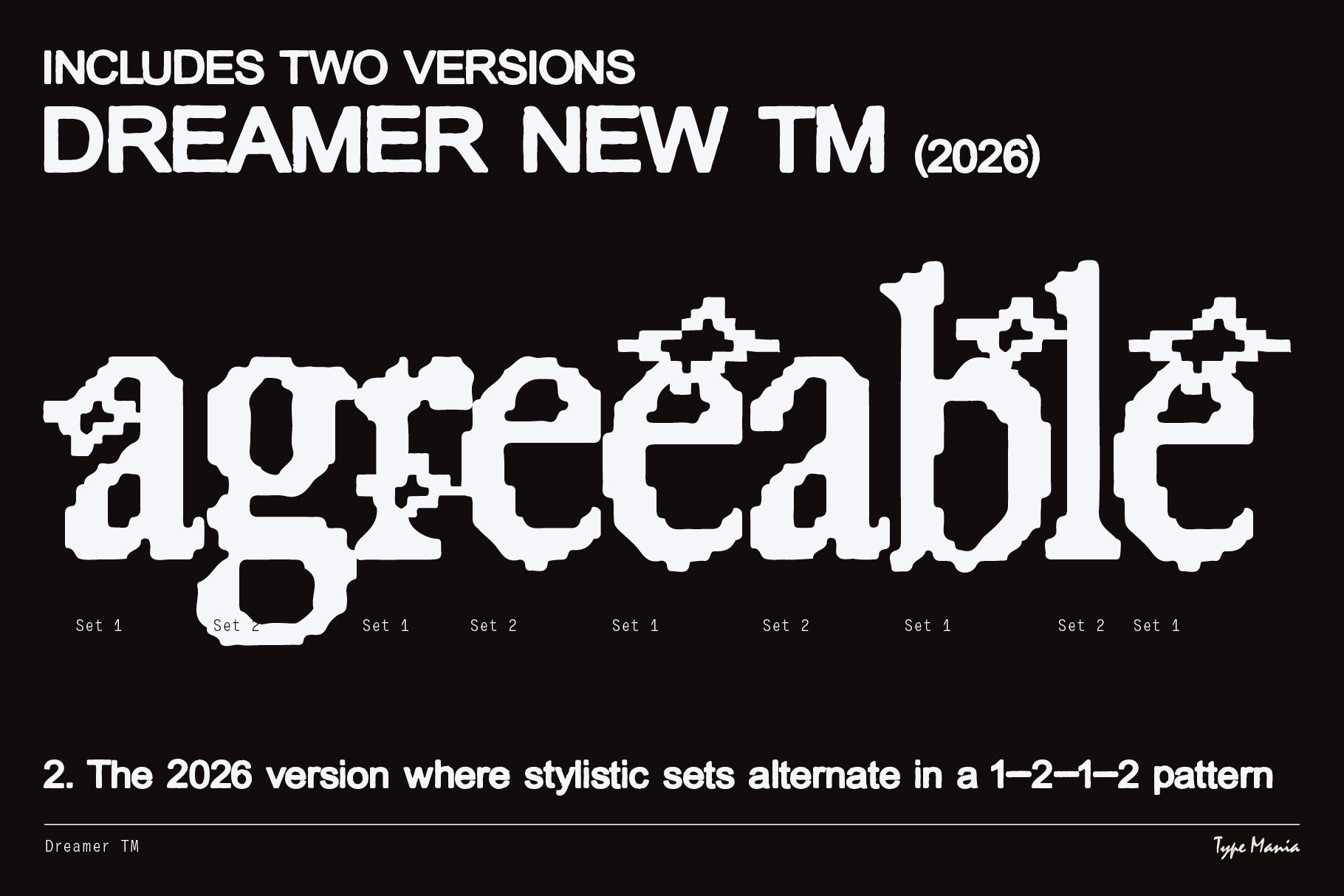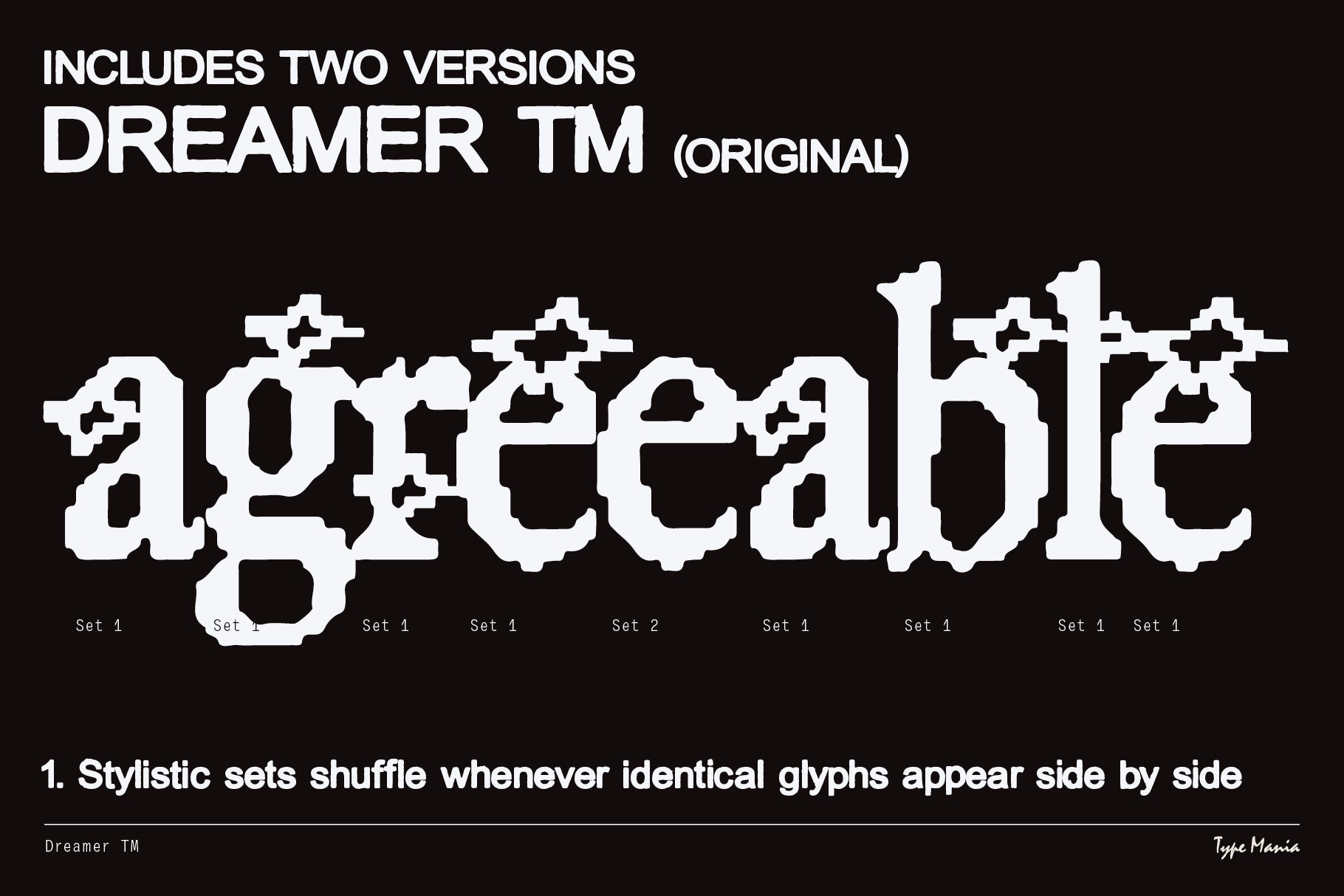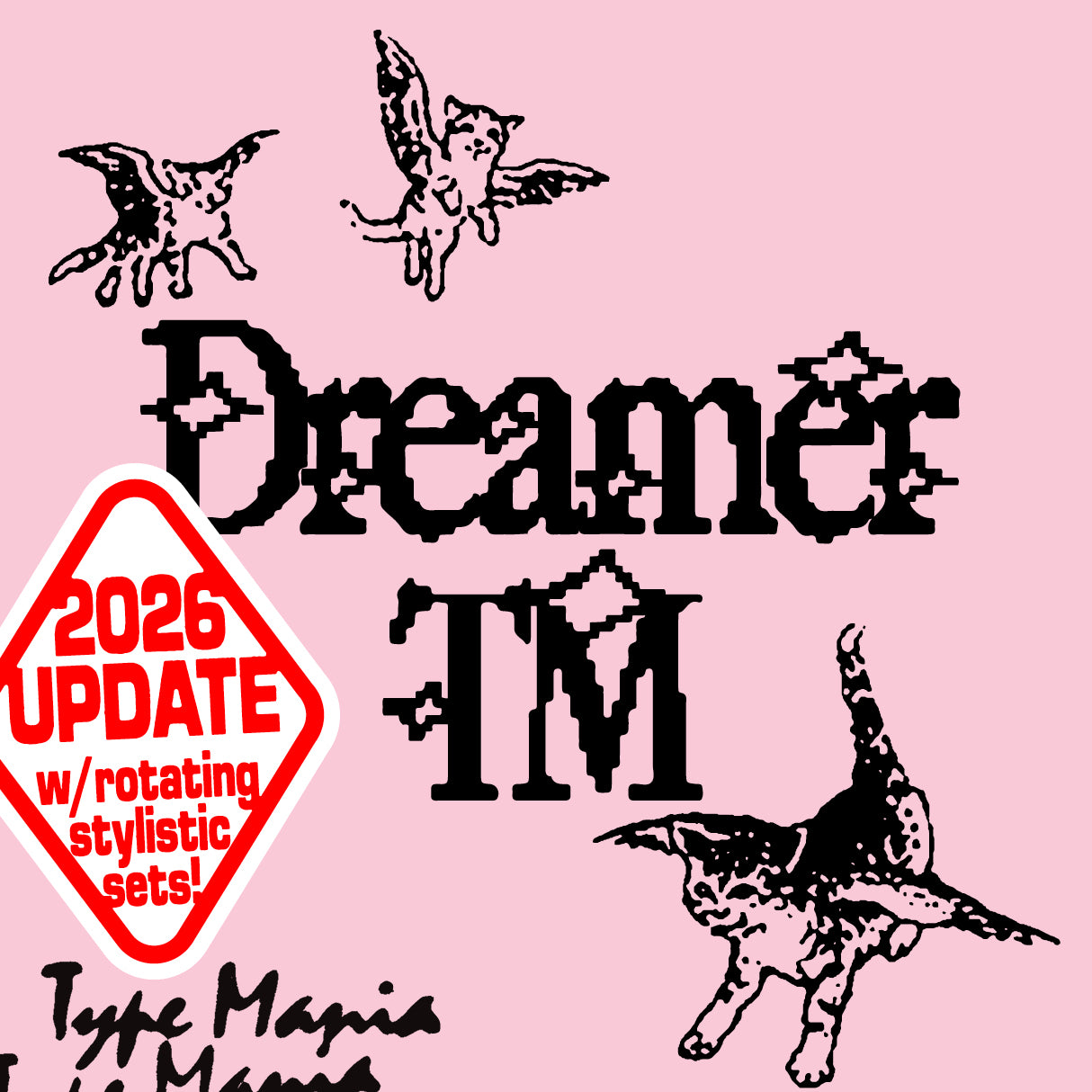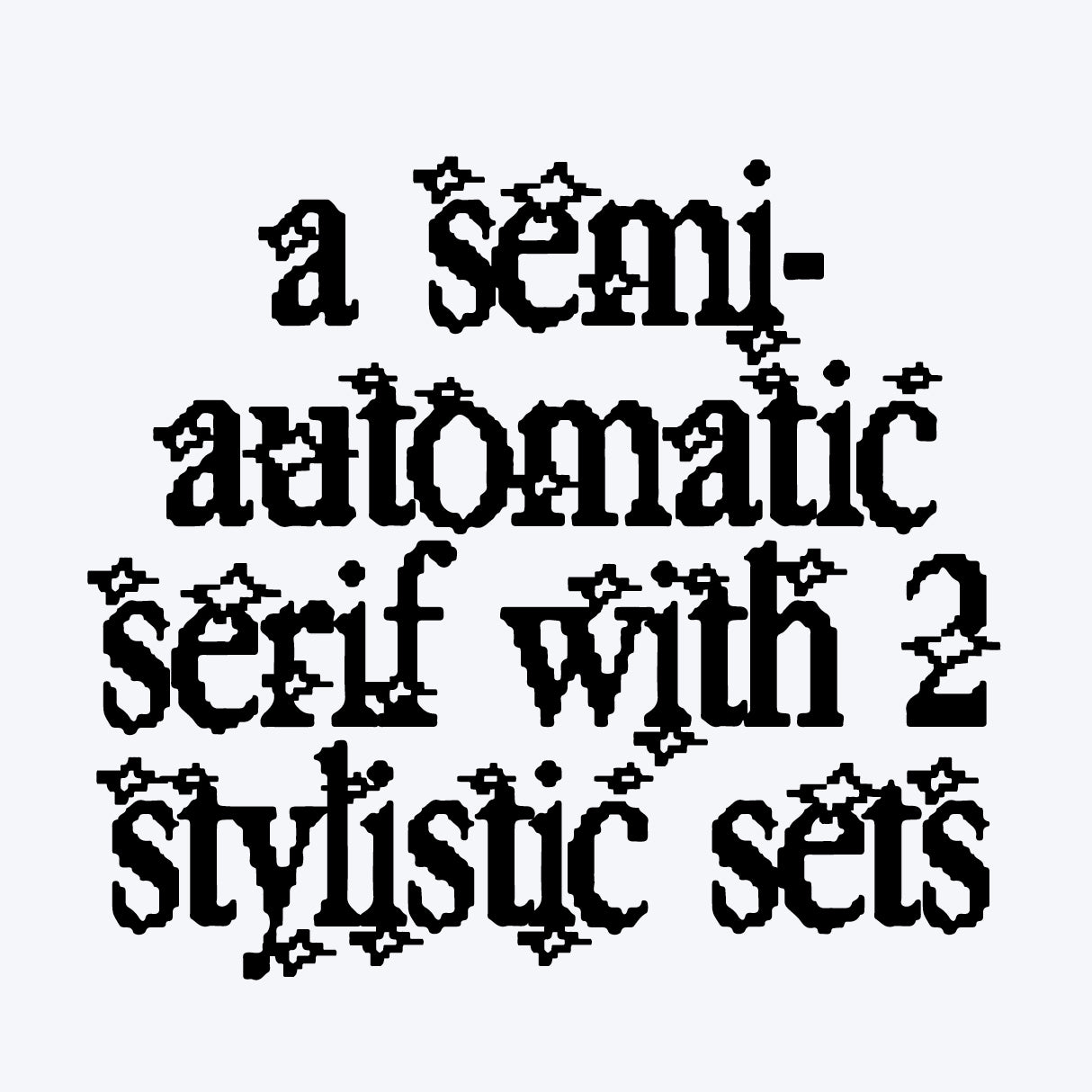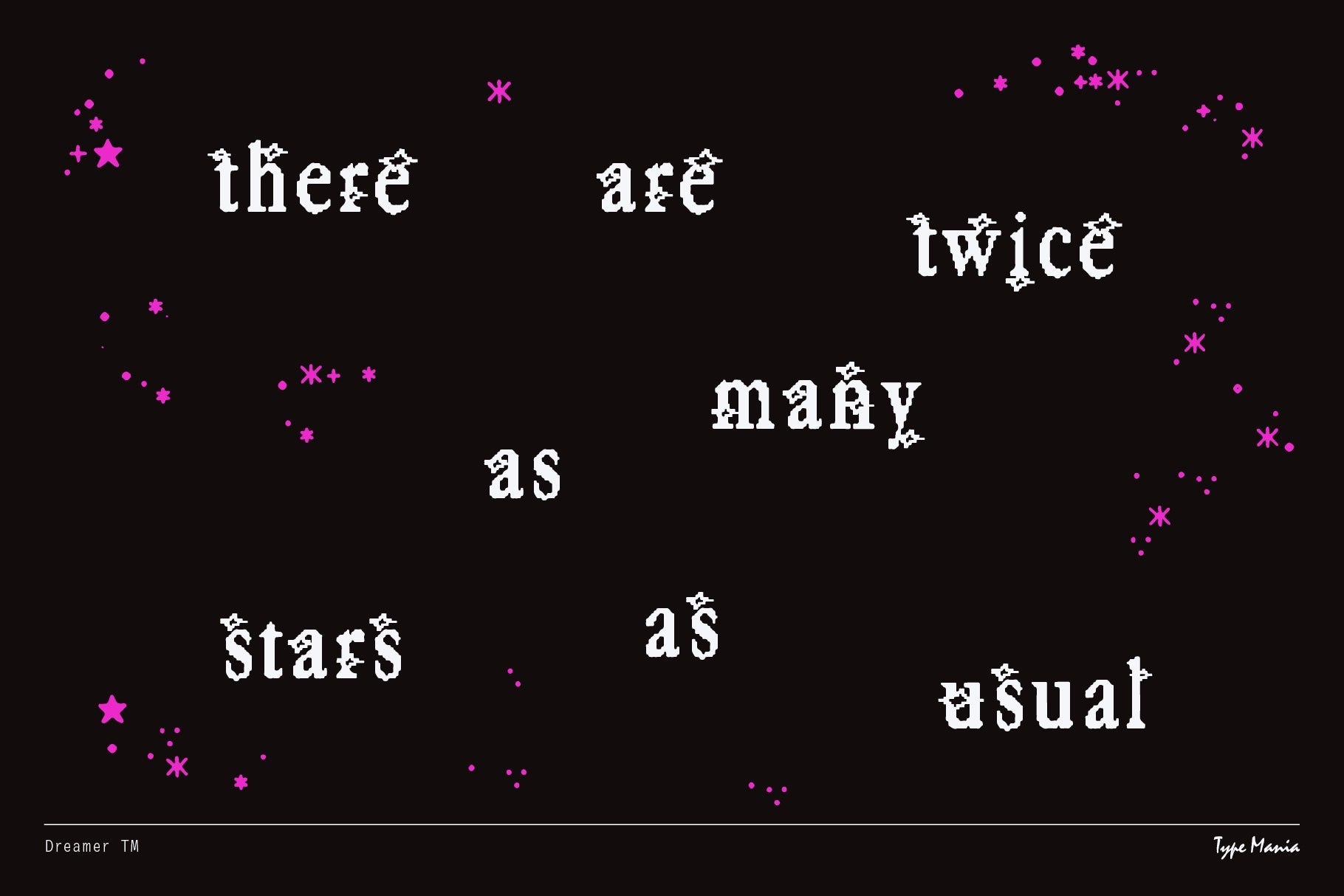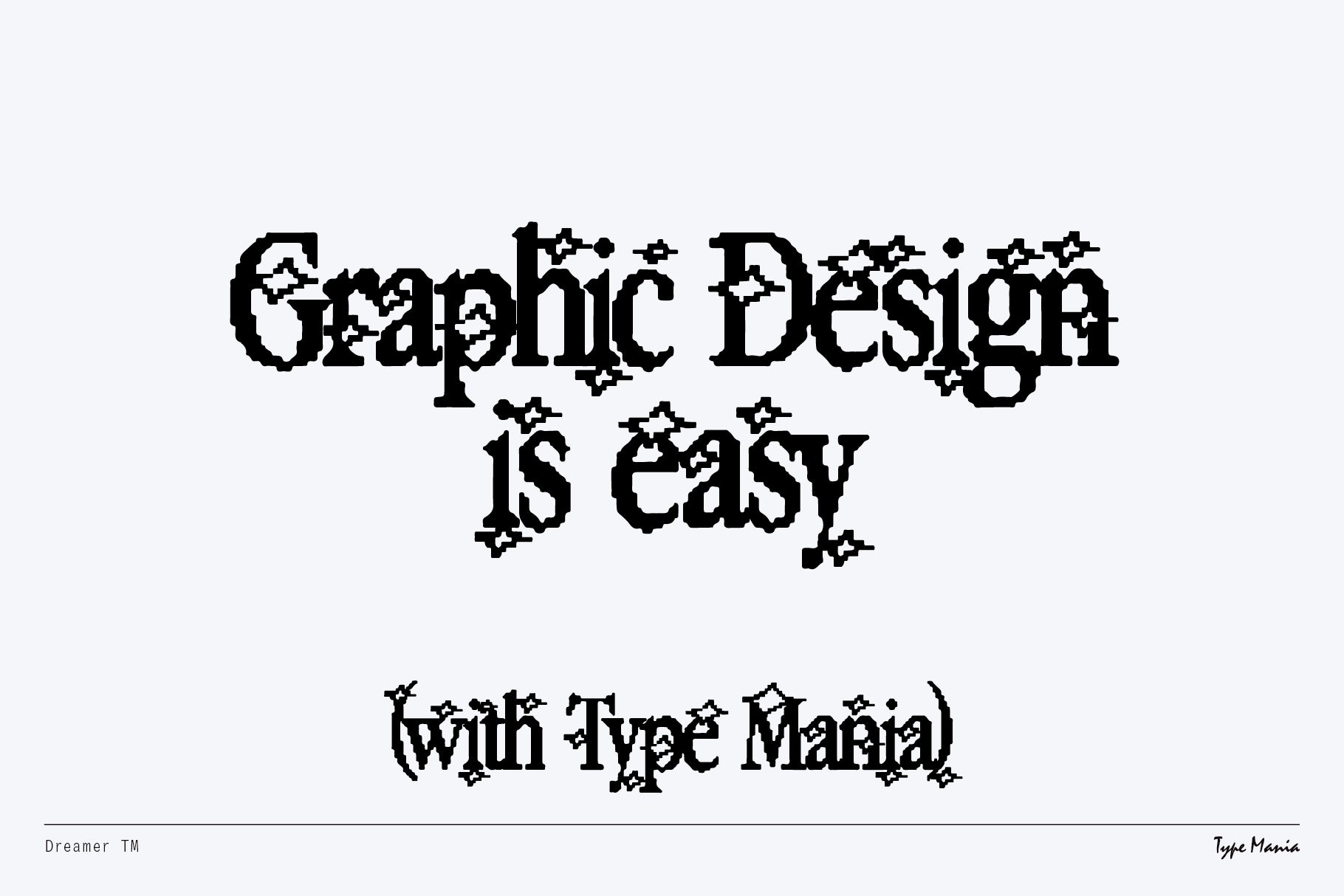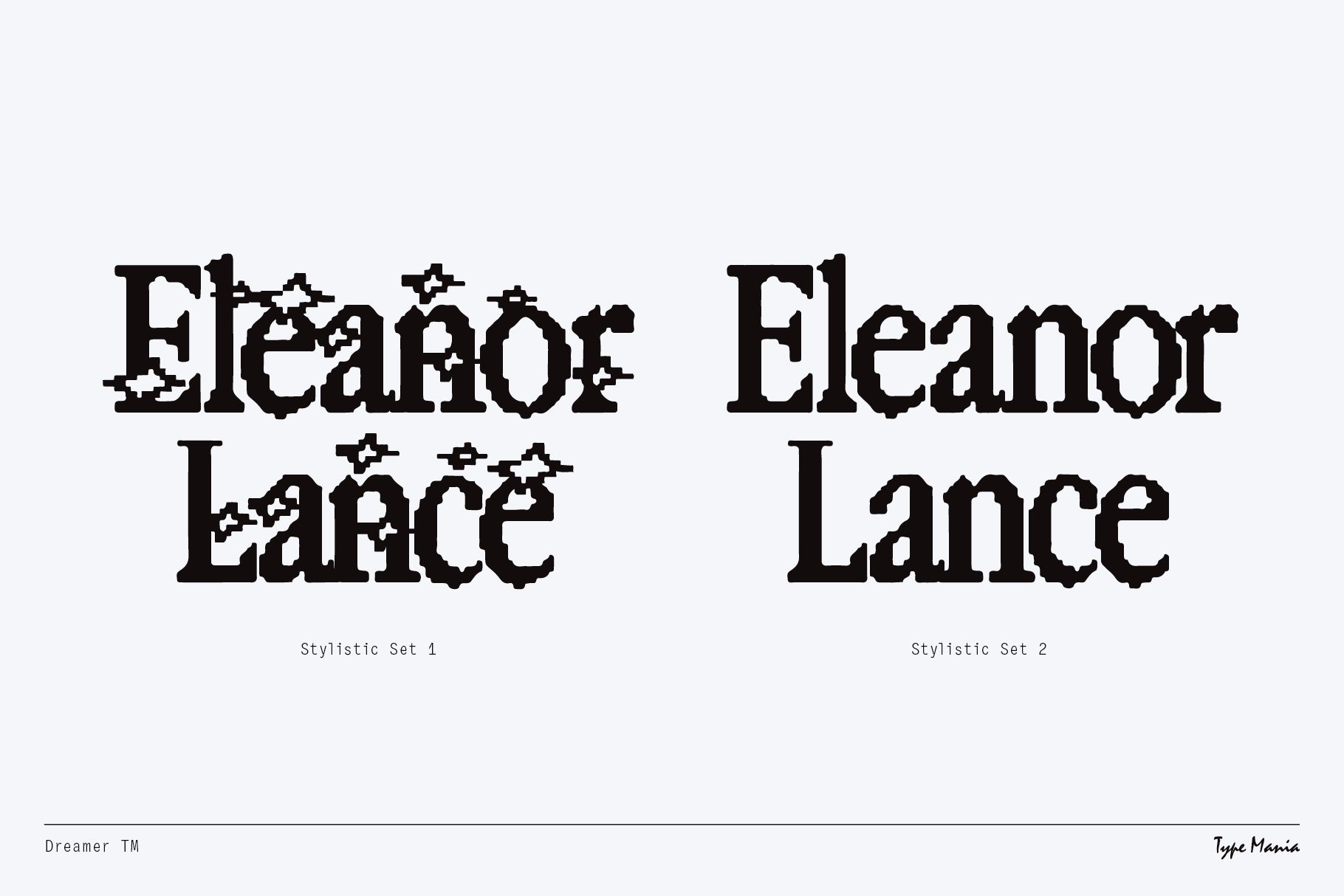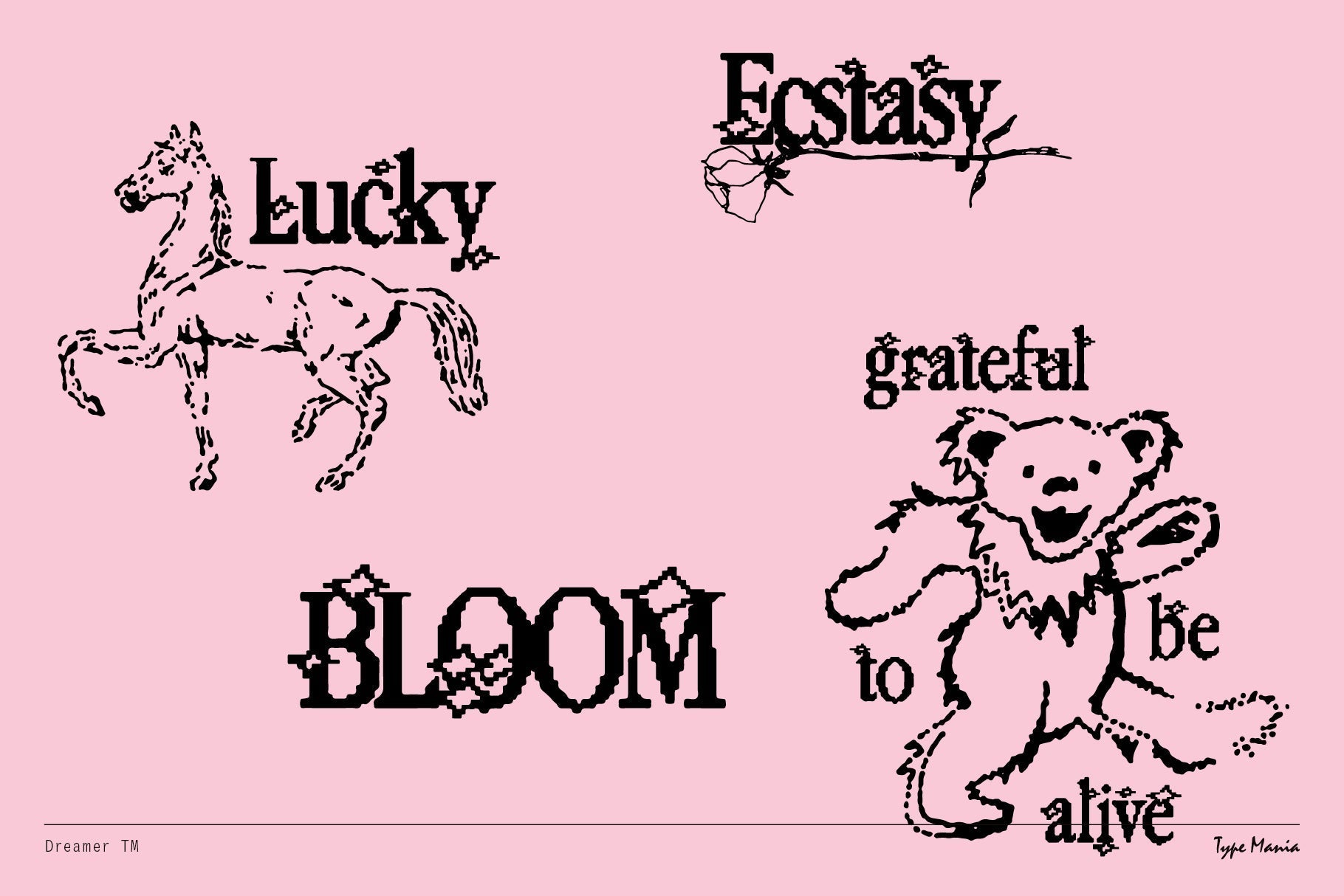
Dreamer TM
Drift into the fantastic world of Dreamer TM, our emotive serif font channeling the Y2K aesthetics. Whether you're designing a poster, creating a logo, or adding a nostalgic touch to your branding, Dreamer TM lends an edgy twist to your project ⋆𐦍.ೃ࿔*:・
- 2 stylistic sets
- Includes two versions of the font: 1. Stylistic sets shuffle whenever identical glyphs appear side by side, 2. A new version where stylistic sets alternate in a 1–2–1–2 pattern, when the Contextual Alternates is turned on.